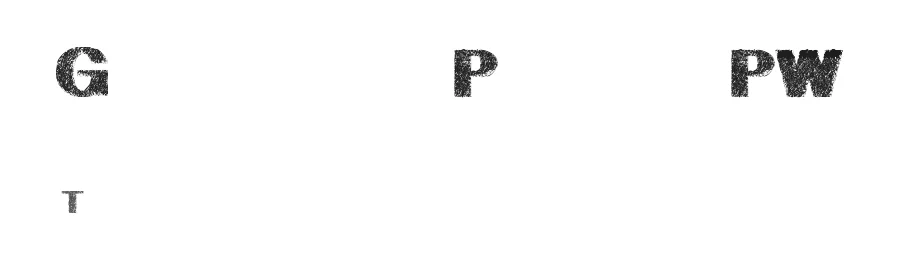
About Record Man Font
Record Man is a decorative font designed by Jake Zeldin. It includes 65 glyphs, a regular weight, OTF (CFF) format, and 197 languages. Record Man is free to download; check the license details on this page before commercial use. Decorative fonts like Record Man work best for logos, posters, packaging, and standout headlines.
| Designer | Jake Zeldin |
Record Man Font is a decorative font that shines as a display or heading face. Pair it with a clean sans-serif or serif font for body text β the contrast creates a clear hierarchy while the two styles stay balanced and easy to read.
Record Man Font
by Jake Zeldin
Record Man Font is a decorative typeface by Jake Zeldin, ideal for logos, invitations, branding, and creative projects.